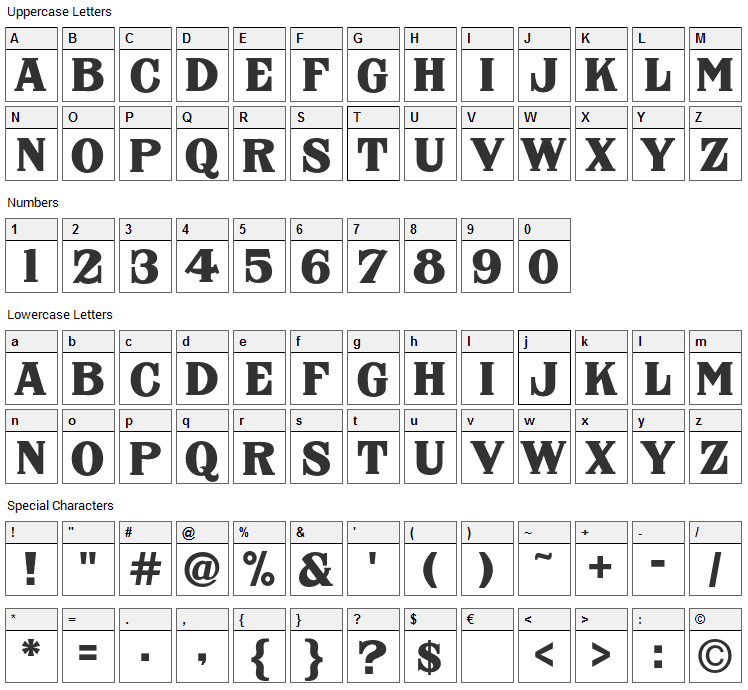
Nicholson French Font
Freeware download is uppercase only characters. For lowercase range of characters and OpenType replacement features, please purchase the commercial version of this font.
Originally given digital life in 1999, Nicholson French now re-emerges over a decade later in modern typographic trim. When you purchase the commercial version, it comes complete with OpenType replacement features and boasts complete multi-language support, from the standard Latin-1 range to Latin Extended-A (Central European), Cyrillic and Greek. Both OTF and TTF formats are included. At over 100 years old and counting, this alphabet by legendary sign-painter Frank H. Atkinson continues to prove it can still stand the test of time.